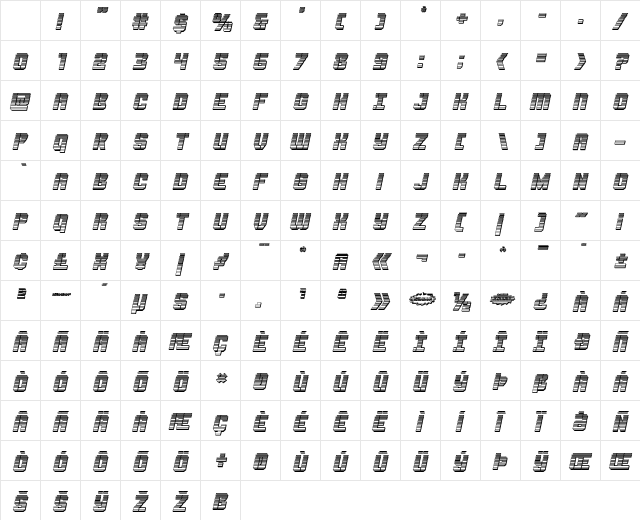
Thunder Trooper Chrome is a composed and adaptable typeface that performs quietly and consistently across a wide range of design contexts. The slanted form adds forward momentum and visual energy.